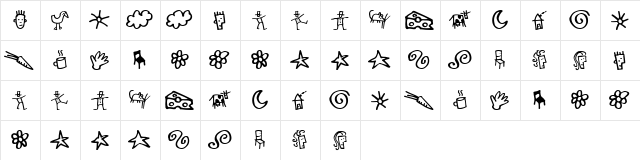
GoodDog Bones Regular
Design Context for GoodDog Bones Typeface
GoodDog Bones is a composed and adaptable typeface that performs quietly and consistently across a wide range of design contexts.